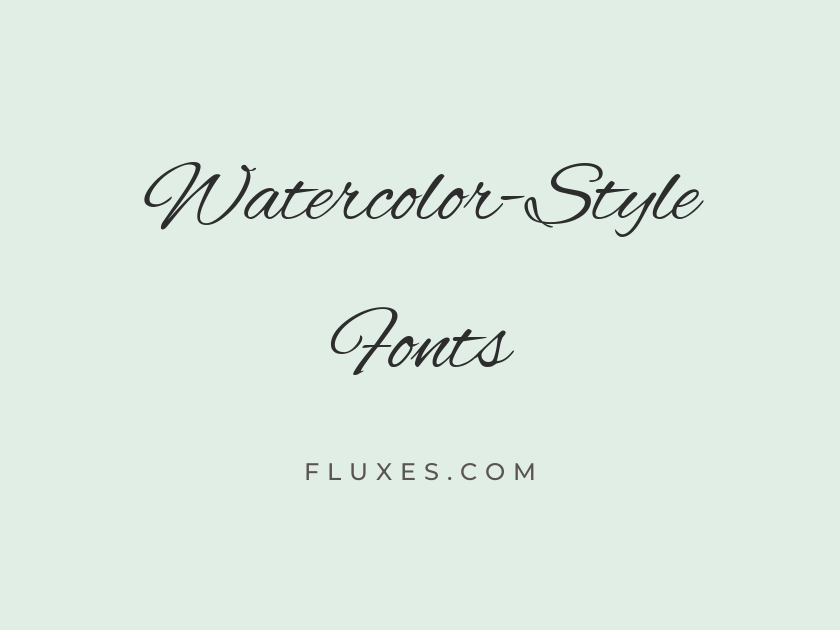
80 Best Watercolor-Style Fonts
Watercolor-style branding lives and dies by its type. The soft bleed of pigment on paper calls for lettering that feels painted rather than typed: loose brush scripts, ink-heavy calligraphy, and hand-lettered marks with a bit of texture or wobble in the stroke. Free Google Fonts cover this territory generously, from delicate copperplate-style scripts perfect for wedding suites to chunky marker fonts built for bold, brushy headlines on packaging, greeting cards, and social graphics.
What follows is a wide sweep of options for anyone searching for free watercolor fonts, brush script alternatives to paid lettering sets, or hand-painted display type for branding and stationery projects.
1. Alex Brush
Painted in loose, confident strokes of ink
Few free scripts read as convincingly “painted” as this one. The connected letterforms swell and taper the way a loaded brush does, making it a favorite for wedding logotypes, monograms, and packaging that wants romance without stiffness. Pair it with a plain serif for body text so the brushwork stays the star.
2. Sacramento
Soft pastel strokes for delicate wedding stationery
Lighter and more upright than most brush scripts, Sacramento has a fine, even line that suits pastel palettes and airy invitation layouts.
3. Great Vibes
Elegant swashes flowing like watercolor ribbons
Long, sweeping swashes and a formal calligraphic backbone make this one of the most reached-for scripts on Google Fonts for anything bridal or ceremonial. It gets muddy at very small sizes, so save it for headlines and titles.
4. Allura
Graceful lettering for a hand-painted invitation
Allura sits close to Great Vibes in feel but with slightly tighter spacing, giving it a touch more restraint for formal stationery.
5. Parisienne
A romantic script inspired by Parisian calligraphy
Rounder and friendlier than the copperplate-style scripts around it, Parisienne brings a soft, storybook charm to greeting cards and quote graphics.
6. Kristi
A quick, watery signature across the page
This one looks like a fast, single-stroke signature rather than a formal script. Reach for it as a small accent word rather than a full sentence, since the thin strokes thin out further at small sizes.
7. Mrs Saint Delafield
Loose, scratchy ink for a personal touch
Uneven baselines and a scratchy, hand-signed quality give Mrs Saint Delafield real personality. It reads like something dashed off with a fine brush pen, which makes it ideal for adding a handwritten note over a watercolor background.
8. Mr De Haviland
Refined script for an elegant watercolor menu
Thin, tidy, and formal, this script leans more toward classic calligraphy than loose brushwork.
9. Herr Von Muellerhoff
Ornate flourishes for a painterly monogram
Heavy flourishing at the caps makes this a strong choice for monograms and short titles, less so for long lines of text where the swashes start to collide.
10. Cookie
A bold, rounded brush for bakery branding
Cookie’s thick, confident strokes and playful bounce make it a natural for food and craft branding that pairs watercolor illustrations with a friendly voice.
11. Yellowtail
Retro brush lettering with a bouncy rhythm
There is a mid-century soda-fountain energy to Yellowtail’s rounded, connected letters, useful when a watercolor palette skews warm and nostalgic.
12. Satisfy
Casual brush marks for everyday watercolor notes
Satisfy sits between a script and a marker font, versatile enough for headers, quote cards, or the occasional logo where a hint of texture is welcome.
13. Meddon
Delicate calligraphy for a soft floral invite
Thin and formal, Meddon works best in generous sizes where its fine hairlines stay crisp rather than dissolving into the paper texture behind it.
14. Ephesis
A trendy, loose brush for modern branding
Ephesis has the loose, slightly imperfect feel that dominates current watercolor and botanical branding on social media, less formal than a copperplate script and more relaxed in its baseline.
15. Rouge Script
Bold connected script with a painterly flow
Heavier than most Google Fonts scripts, Rouge Script keeps its shape at smaller sizes better than delicate options like Whisper or Tangerine.
16. Lovers Quarrel
Thin flourished script for romantic keepsakes
Ornate and old-fashioned, this script suits vintage-inspired wedding stationery, though its fine strokes ask for plenty of white space around them.
17. Pinyon Script
A classic formal script for elegant place cards
Pinyon Script channels traditional engraved invitations, upright and formal with a restrained elegance that works alongside soft watercolor florals.
18. Tangerine
Delicate loops for a light, airy design
Tangerine is exceptionally thin, gorgeous at large display sizes on a title page but nearly illegible shrunk down, so treat it strictly as a headline font.
Limit yourself to one script per design. Two flowing scripts fighting for attention rarely works; let one script lead and support it with a calm, simple typeface for everything else.
Between the delicate copperplate scripts, the bold brush marks, and the looser hand-lettered options here, there is enough range on Google Fonts to match almost any watercolor mood, from a formal wedding suite to a loud, playful product label.